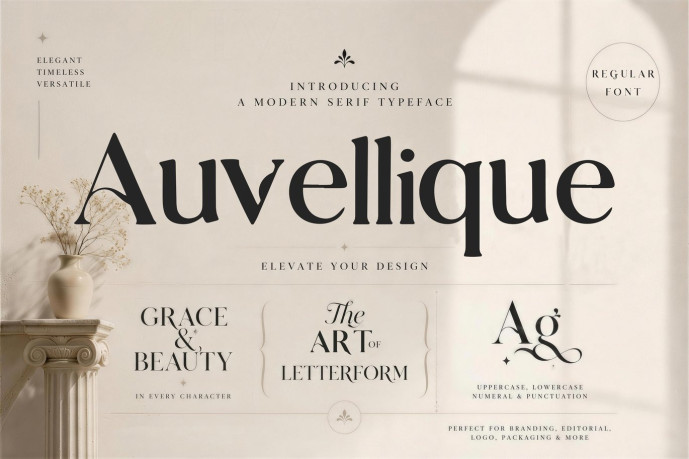
Auvellique – Elegant Serif Font
Designer: Pitchlook
Auvellique is a refined and sophisticated serif typeface designed to bring timeless elegance to every creative project. Featuring graceful curves, high-contrast letterforms, and beautiful ligatures, this font delivers a luxurious editorial feel while maintaining excellent readability.
Perfect for luxury branding, fashion editorials, cosmetic packaging, wedding invitations, logos, magazine headlines, social media, and premium marketing materials, Auvellique combines classic serif aesthetics with a modern minimalist touch.
Whether you’re creating a high-end brand identity or an elegant typography layout, Auvellique helps your designs stand out with confidence and sophistication.
Font Features
Uppercase & Lowercase Letters
Numbers & Punctuation
Elegant Ligatures
Multilingual Support
Why You’ll Love Auvellique
Auvellique was crafted for designers who appreciate timeless elegance and clean sophistication. Its delicate high-contrast strokes, refined proportions, and stylish ligatures create a luxurious visual identity suitable for both modern and classic designs.
From premium perfume labels and fashion campaigns to boutique logos and editorial layouts, Auvellique adds an exclusive and polished character to every project.